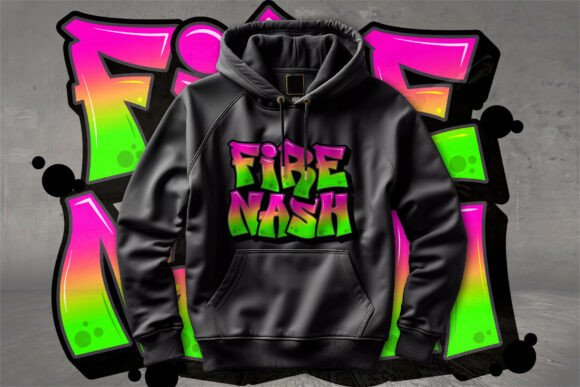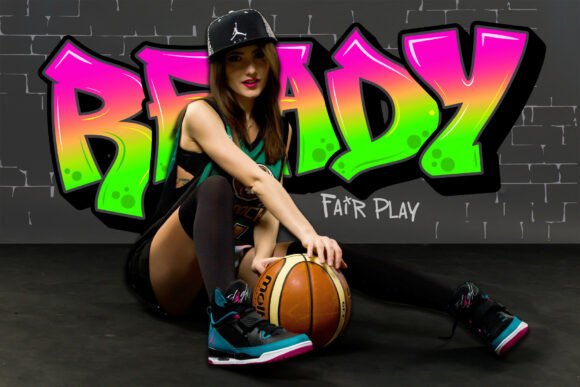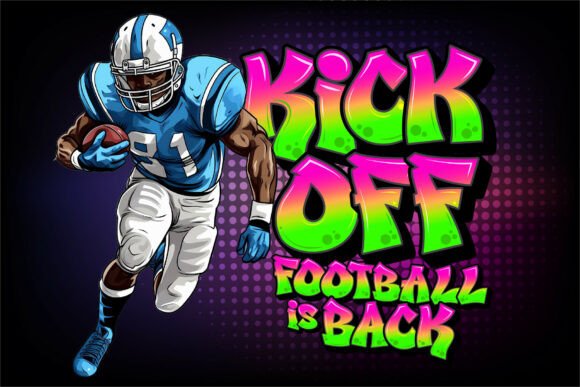
Introduction to Judge Color Pink Green Font
Have you ever stared at a blank canvas, waiting for that perfect spark to ignite your next creative project? That’s exactly what happens when you lay eyes on the Judge Color Pink Green Font. This vibrant, graffiti-inspired color font is a game-changer for designers, and we can’t wait to share its magic with you.
As a design enthusiast, you’re probably always on the lookout for that one special resource that elevates your work to the next level. Judge Color Pink Green Font is that resource – a high-quality, free download that’s packed with the essence of authentic street art. With its striking pink and green gradient, bold black outline, and comprehensive character set, this font is the perfect addition to any design arsenal.
Whether you’re working on a sports visual, a YouTube thumbnail, or a street-inspired fashion label, Judge Color Pink Green Font is sure to bring that rebellious streak to your design. Its transparent background and OpenType-SVG Color Font feature make it a breeze to work with, and its genuine graffiti style is sure to captivate your audience. Get ready to unleash your creativity with Judge Color Pink Green Font!
Key Features of Judge Color Pink Green Font
- High-quality font design perfect for creative projects, including graphics, logos, and branding materials.
- Unique Judge Color Pink Green Font features a bold, eye-catching design with a mix of pink and green hues.
- Transparent background option allows for seamless integration into any design, from digital to print materials.
Honest Review: Judge Color Pink Green Font
I recently stumbled upon Judge Color Pink Green Font, and I must say it’s been a great addition to my design resources. This font is perfect for any creative project that requires a touch of elegance and sophistication.
Here’s what works well about Judge Color Pink Green Font:
- High-quality design that’s perfect for commercial use
- Transparent background, making it easy to layer and manipulate
- Unique blend of pink and green hues that add a pop of color to any design
- Limited font styles and weights, which may not be suitable for complex designs
- Not as versatile as some other fonts, which may limit its use in certain creative projects
Overall, I’m impressed with Judge Color Pink Green Font. It’s a high-quality design resource that’s perfect for designers looking for a unique and elegant font. While it may have some limitations, it’s definitely worth considering for your next creative project. ✨
The Judge Color Pink Green Font is perfect for designs that require a touch of whimsy and fun. Use it for social media graphics, blog posts, or any other creative project that needs a high-quality, unique font.